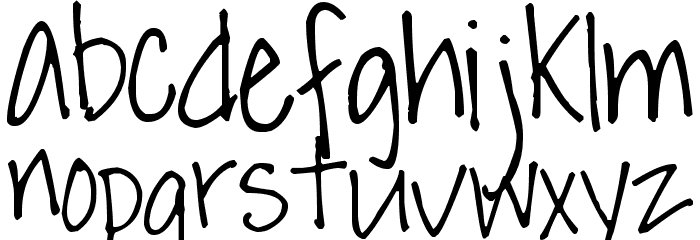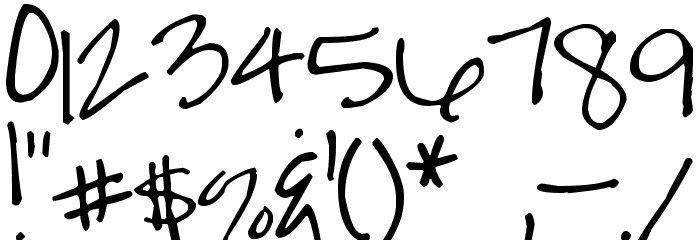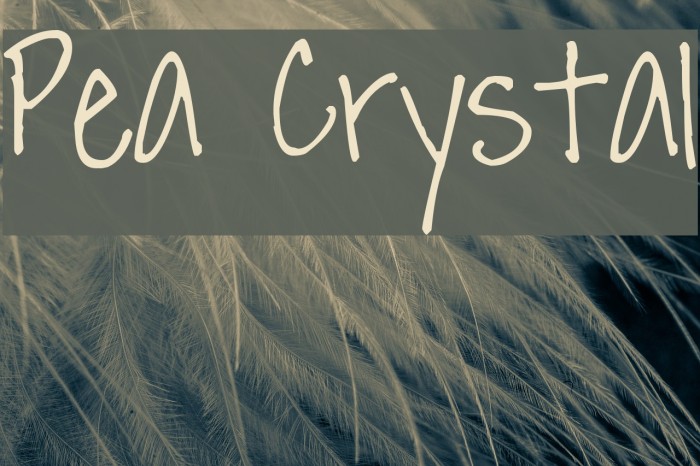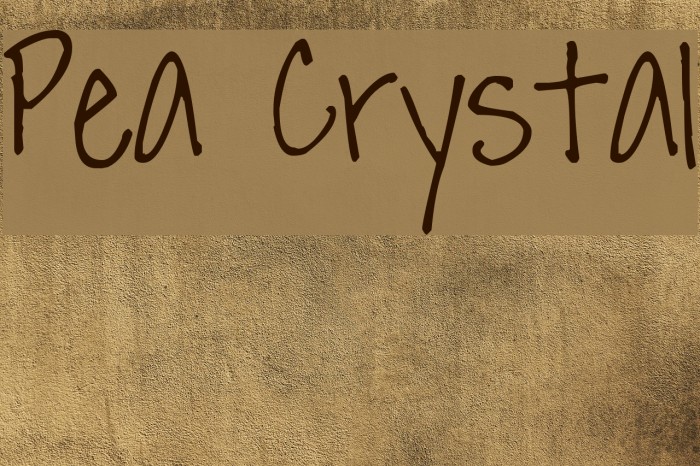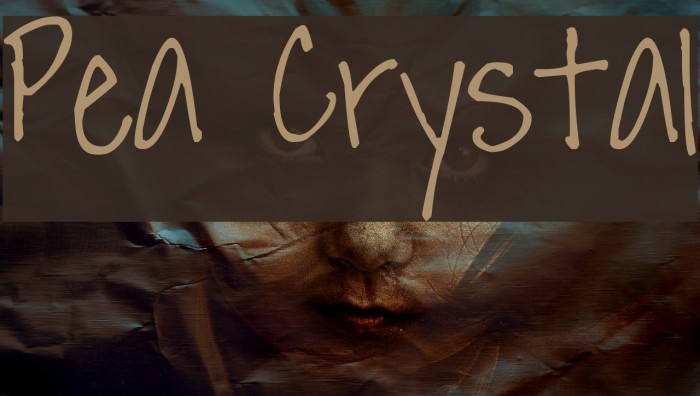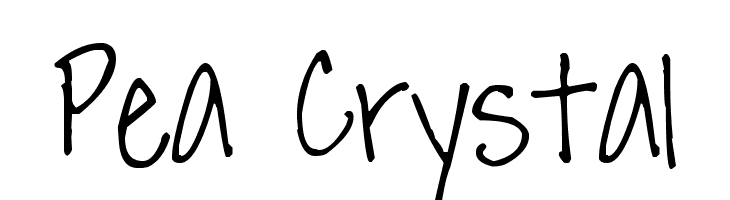
Pea Crystal Font
This font features a playful and casual handwritten style, characterized by its uneven strokes and slightly irregular letterforms. The uppercase and lowercase letters maintain a consistent flow, giving it a natural and spontaneous appearance. The numbers and special characters are crafted with the same informal touch, making the font versatile for creative projects. Its organic and lively design makes it suitable for projects that require a personal and approachable feel.
A playful, casual handwritten font with uneven strokes and a natural flow.
- Proposed Projects: Ideal for greeting cards, personal invitations, children's books, and creative branding.
- Overall Style: Casual
- Use Case: Headlines, Informal text, Creative projects